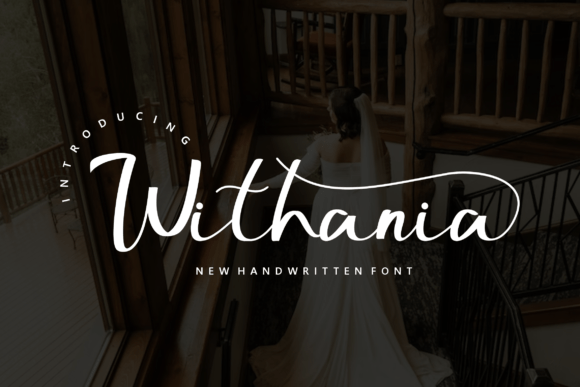
Journey into the realm of exquisite typography with Withania, a script font that embodies elegance, grace, and a touch of modern allure. Meticulously crafted by prayoga_std, this cursive handwritten font captivates the senses with its flowing lines, delicate curves, and timeless appeal.
Withania is more than just a collection of letters; it's an invitation to elevate your creative projects to new heights. Envision your designs adorned with Withania's sophisticated charm, adding a touch of class and sophistication to every word. Whether you're designing a heartfelt signature, crafting personalized stationery, or creating a striking logo, Withania will effortlessly elevate your vision and leave a lasting impression.
Imagine your wedding invitations adorned with Withania's graceful script, conveying the timeless elegance of your special day. Let your typography quotes dance across the page, captivating readers with their beauty and poetic flow. Envision magazine covers and book covers adorned with Withania's alluring curves, drawing readers in with a promise of captivating stories within.
Withania's versatility knows no bounds, extending beyond the realm of print. Picture your clothing line adorned with Withania's unique charm, each garment transformed into a wearable work of art. Envision branding and packaging designs that speak volumes, capturing the essence of your brand with Withania's distinctive flair.
Withania is the perfect companion for designers seeking to create a lasting impact. Its delicate strokes and timeless beauty seamlessly blend with a wide spectrum of design styles, effortlessly enhancing logos, headers, and packaging designs. Let Withania be your muse, guiding you towards creative masterpieces that will captivate and inspire. Embark on a typographic adventure with Withania, and let your designs bloom with elegance and grace.